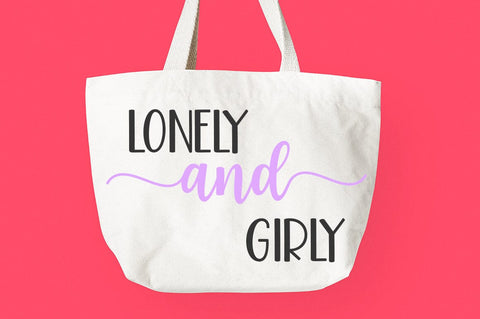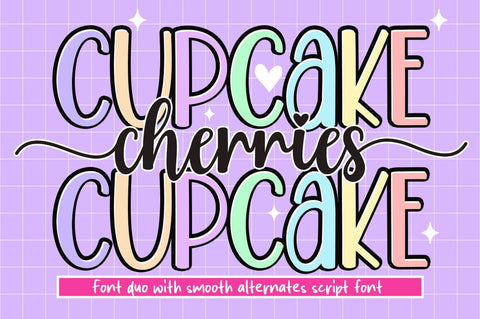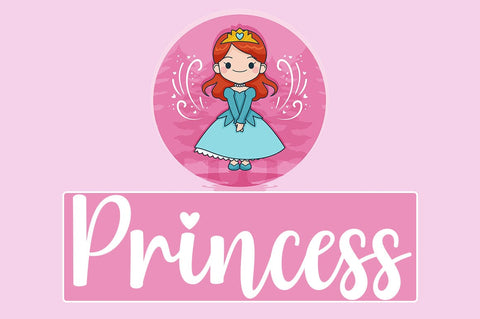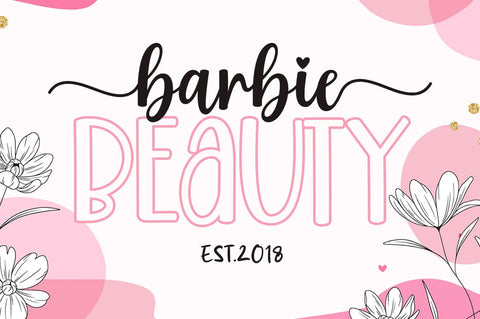
Cherries Cupcake Font Duo
Introducing the Cherries Cupcake Font Duo, an innovatively contemporized script font, distinguished by its unpredictably dynamic baseline. Ingeniously designed to impart a sense of vitality and femininity. The beloved Valentine Script, an added bonus, beautifully enhances wedding stationeries, heartfelt thank-you notes, expressive quotes, and warm greetings cards, and even leaves an unforgettable mark on business logos and cards. It’s an excellent choice for calligraphic projects needing the fluidity of ink or watercolor mediums. Boasting initial letters, terminals, a raft of alternatives and multi-language support, it is wonderfully versatile, elegantly crafted, and ready to elevate your design journey.